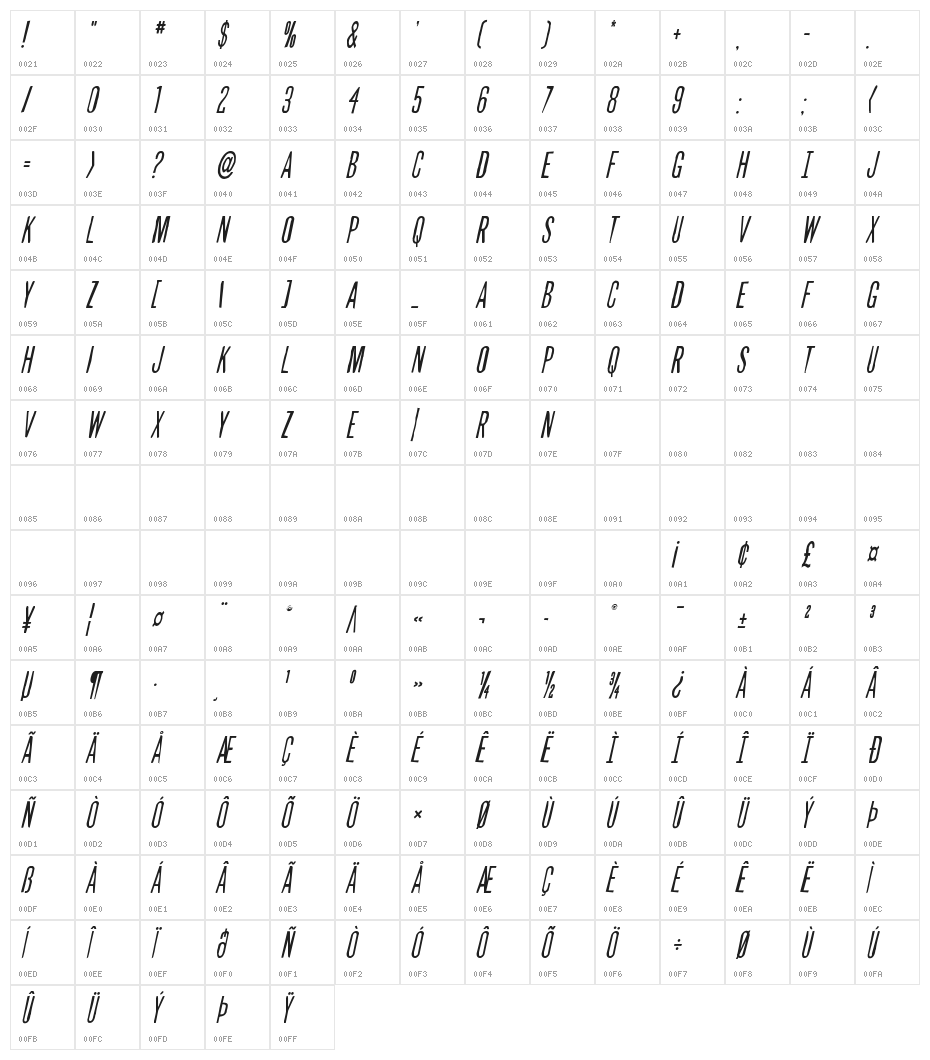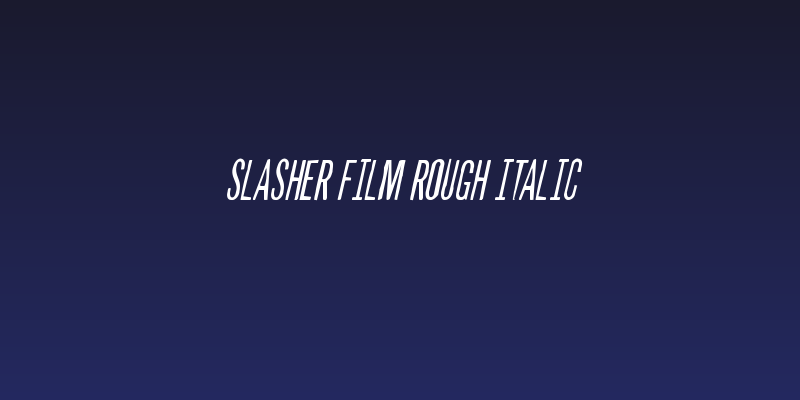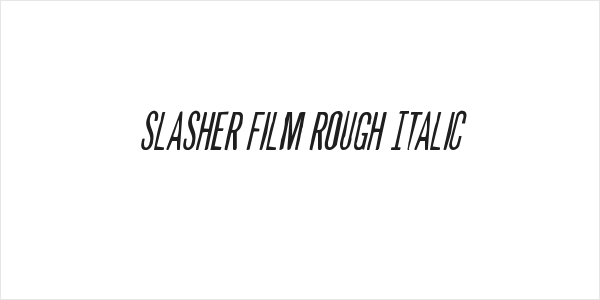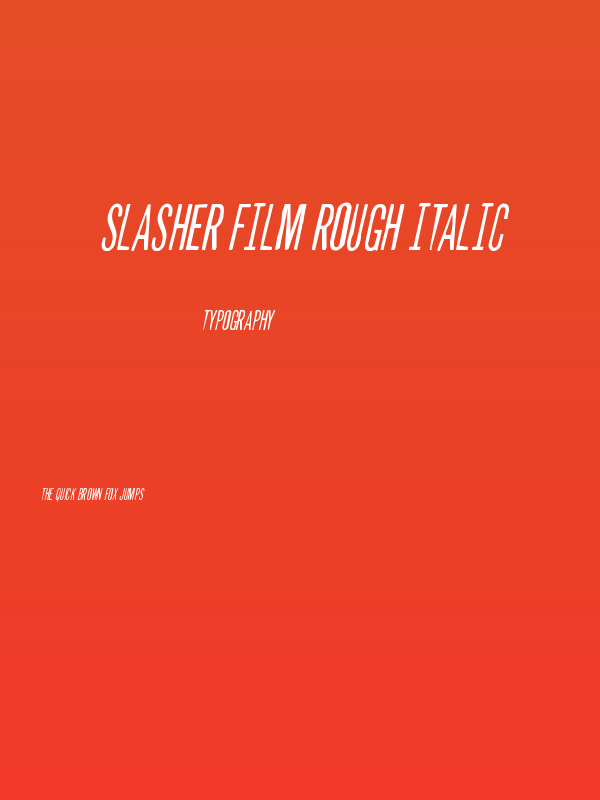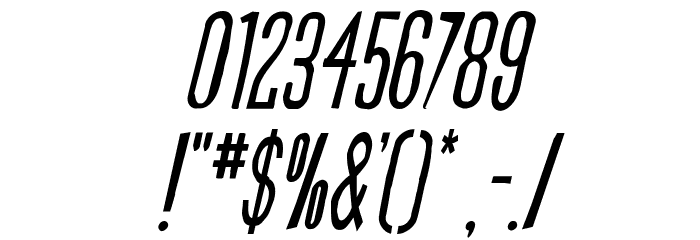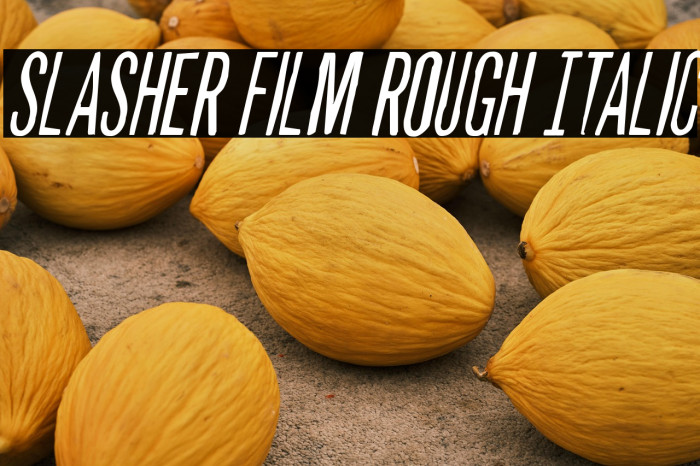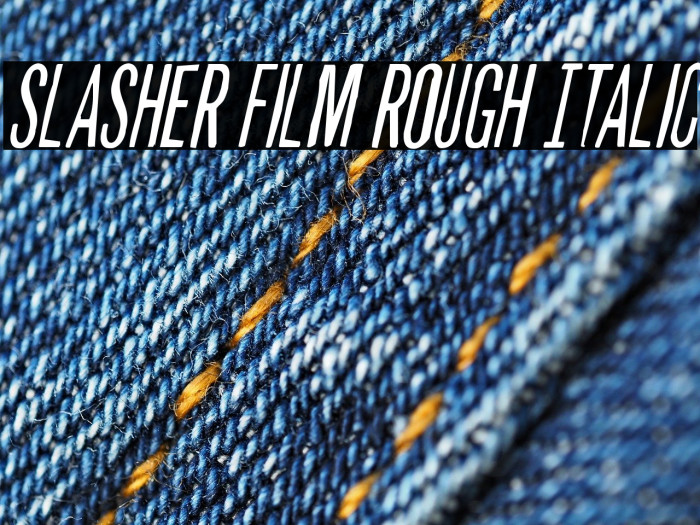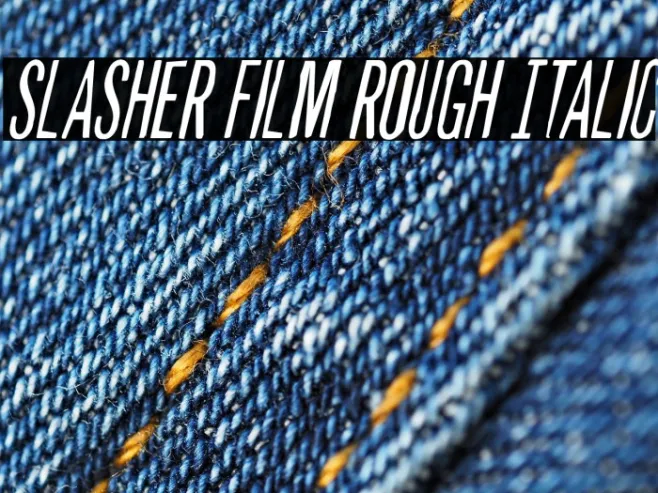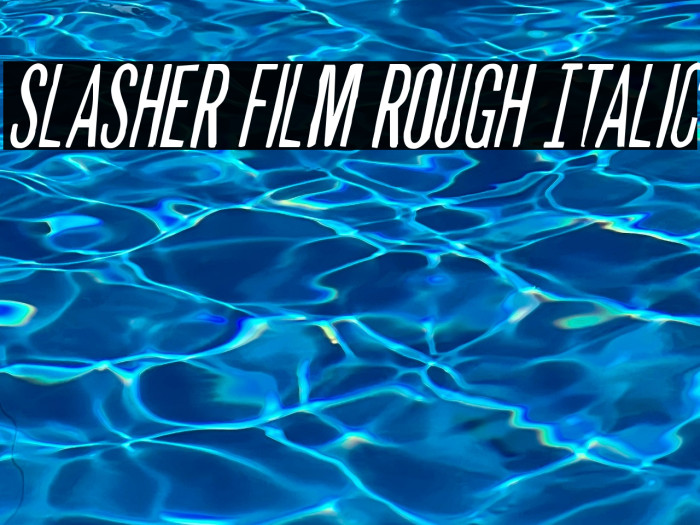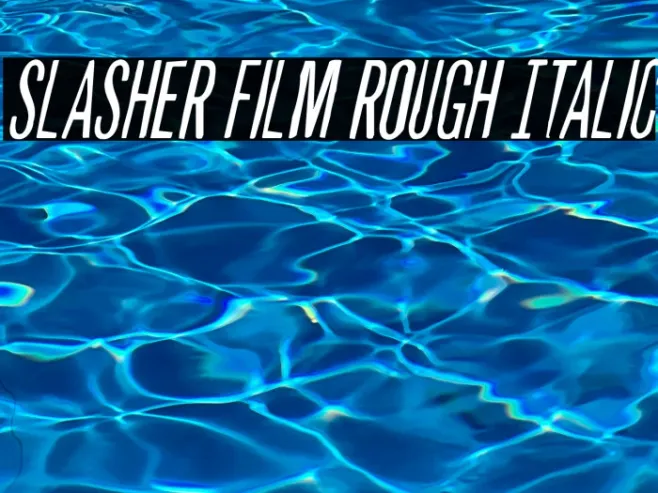
Slasher Film Rough Italic Font
Slasher Film Rough Italic Description
This font features a dynamic and edgy style with a rough, italicized appearance. The letters are sharply angled, giving a sense of motion and urgency. The strokes are uneven, adding a raw and gritty texture that enhances its bold character. The uppercase and lowercase letters maintain a consistent slant, creating a cohesive look. The numerals and special characters follow the same stylistic approach, ensuring uniformity across all glyphs. This font's unique design makes it stand out, perfect for projects that require a dramatic and impactful visual presence.
| Overall Style | Modern, Edgy |
| Proposed Projects | Ideal for horror movie posters, edgy branding, album covers, or any project needing a dramatic flair. |